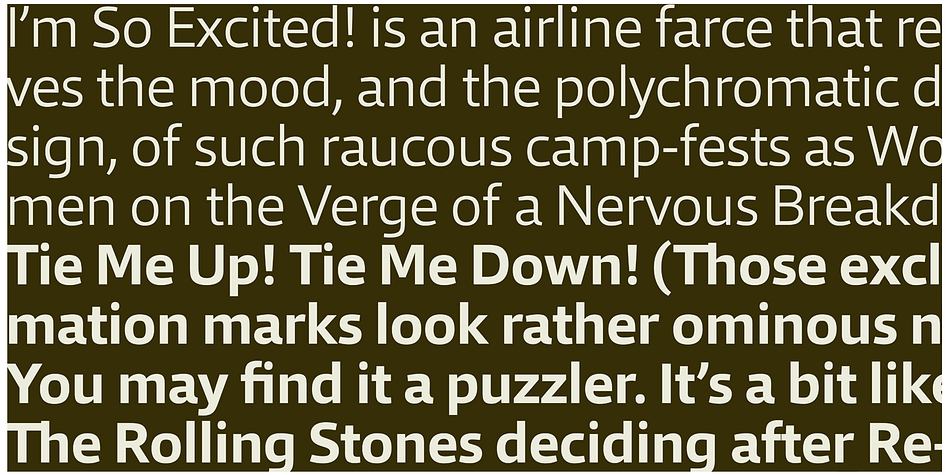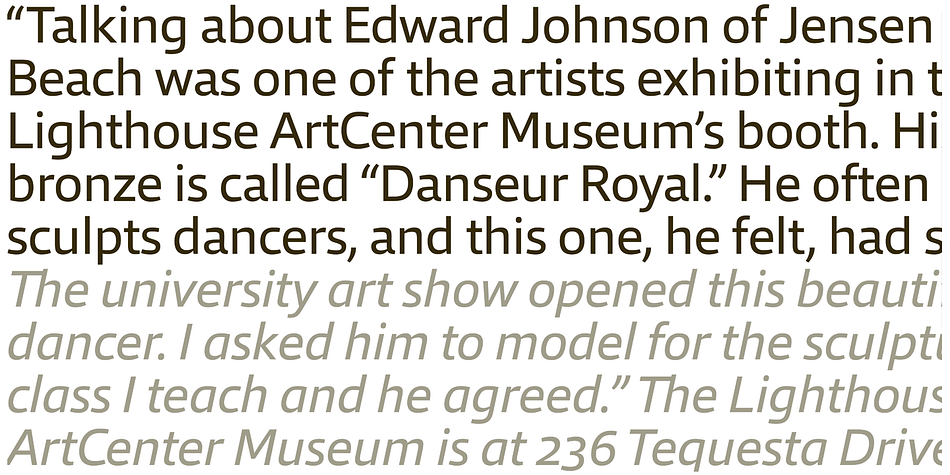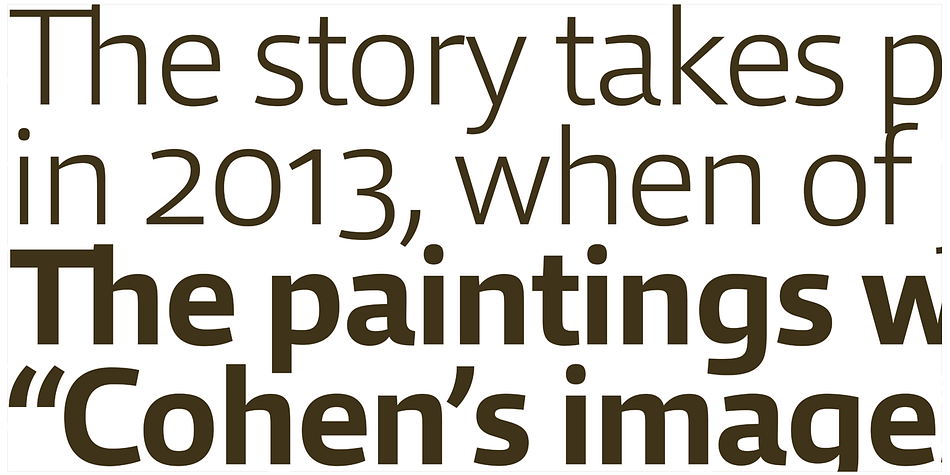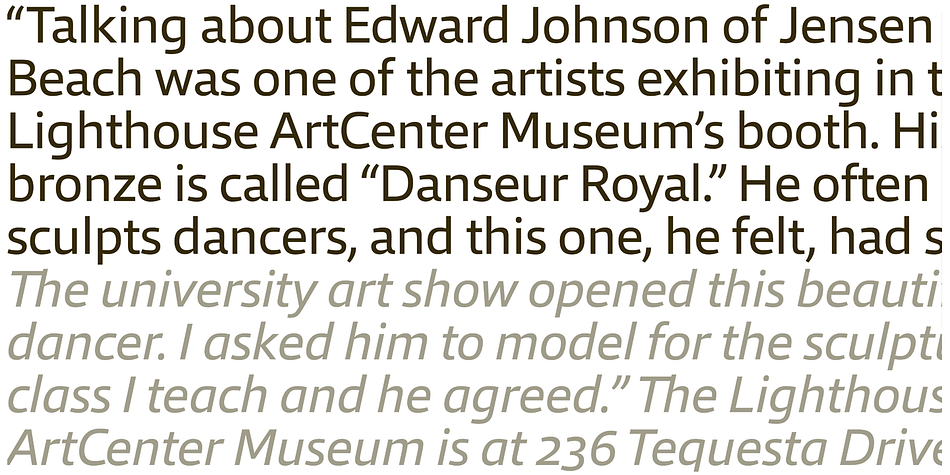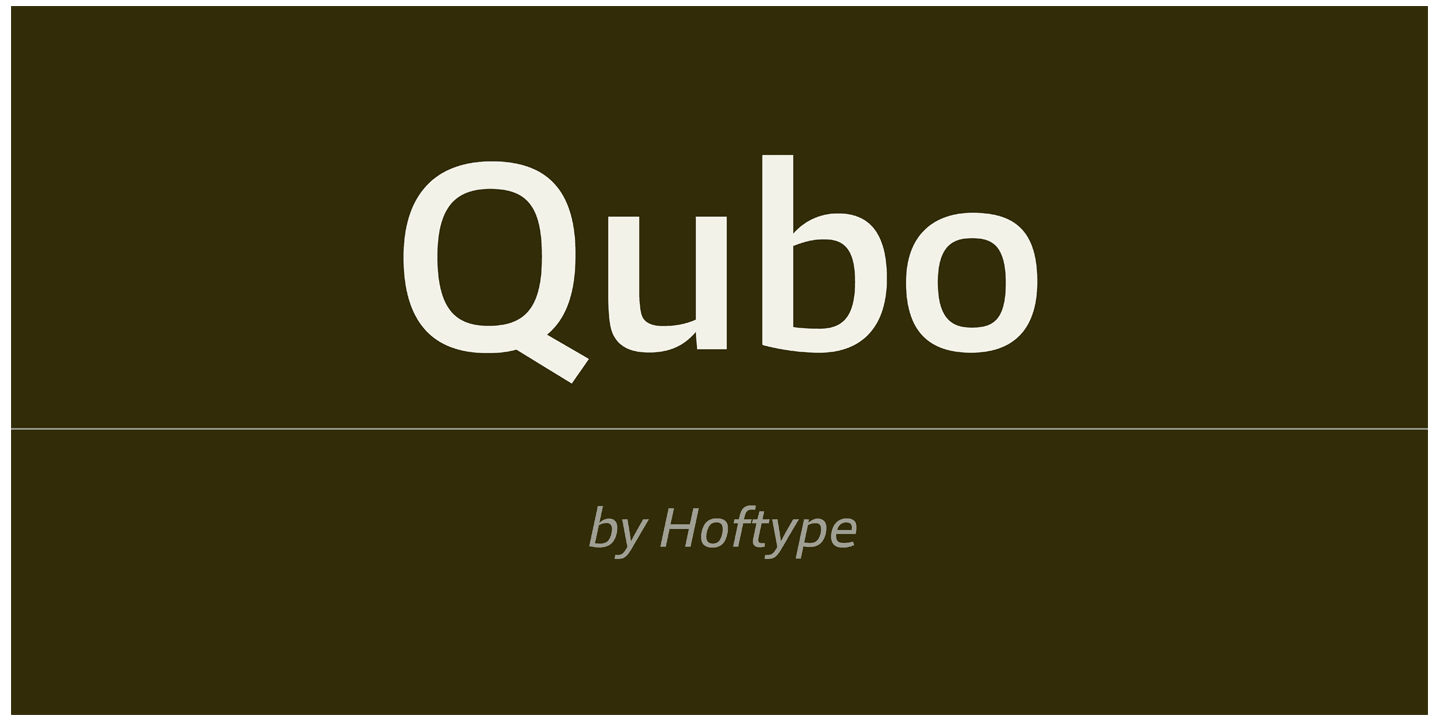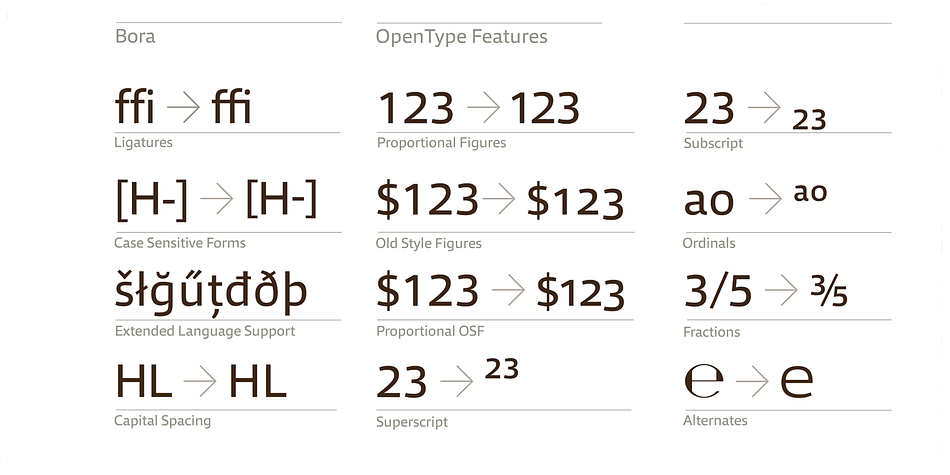
Qubo is a sans serif font family. This typeface has fourteen styles and was published by Hoftype.
Qubo, a new forcefully drawn monoline face. Its clear graphics create its appeal and give it distinctive characteristics. The slightly squared round elements make for an open and elegant look; subtle details refer to humanistic models. Qubo is a neutral, cool and very versatile typeface. It works superbly both in print and on the web.